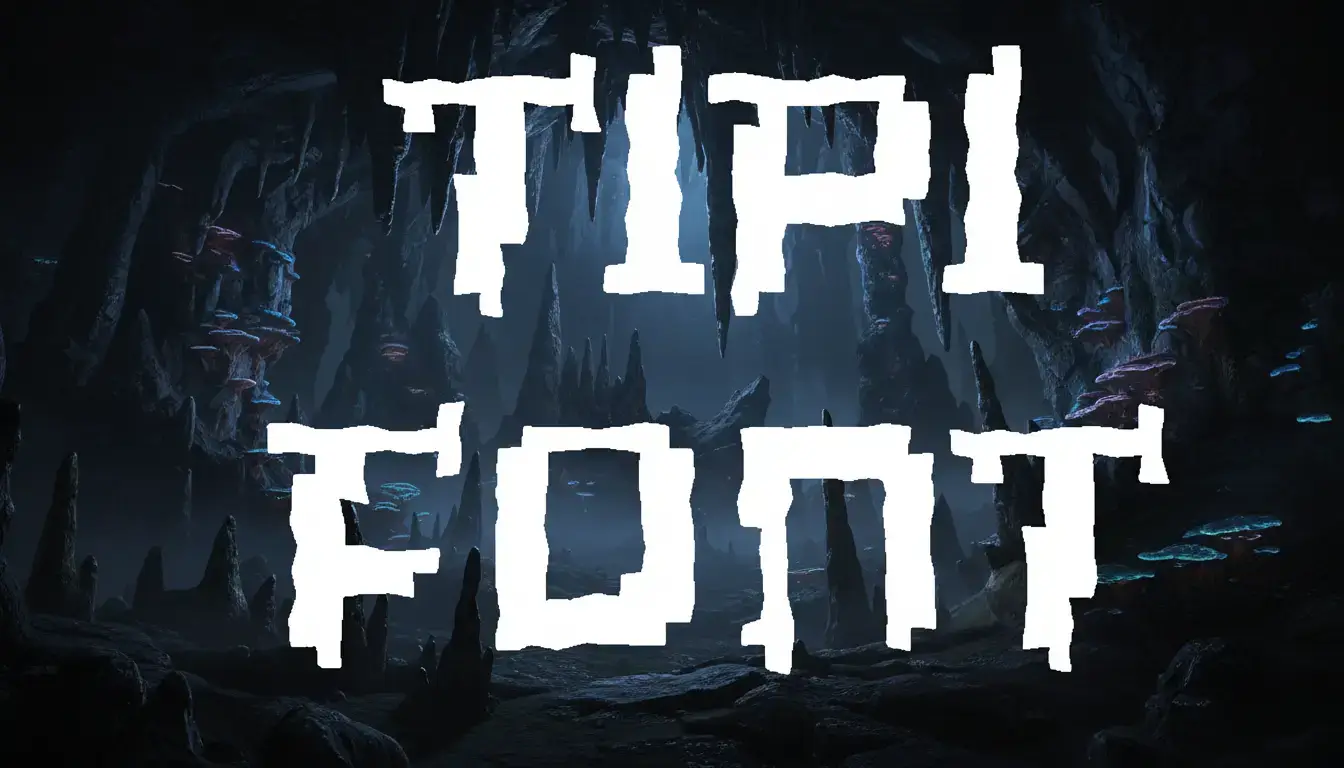
Tipi Archaic Font
Tipi Archaic is a highly unique, decorative display typeface designed by the German typographer Thomas Mettendorf and released through his studio, Schmalfett. Initially created in 1998 using a strict geometric layout grid, the design took an accidental turn—resulting in a distinct, tribal visual identity rather than a standard mechanical aesthetic.
Tipi Archaic
Tipi Archaic is a techno font designed by Thomas Mettendorf and published by Schmalfett. Squared-off, geometric letters give it a digital, high-tech feel. You get ten styles in one free ZIP, and the preview above lets you test each one before you download.
- Font styles: 10 (Archaic, Archaic Inline, Electric, Electric Display, Electric Inline, Organic, Organic Inline, Slanted Electric, Slanted Electric Display and Slanted Electric Inline)
- Glyphs: 202 in the Archaic style
What You Can Type With Tipi Archaic
You get every letter from A to Z in both cases and all the numbers from 0 to 9, which means Tipi Archaic can handle full sentences, dates and prices. Everyday marks like &, !, ? and @ are there too. Thanks to its accented letters, it also works for Spanish, French, German, Portuguese and Italian, not just English.
Where Tipi Archaic Works Best
Tipi Archaic is a natural fit for gaming logos, tech branding and futuristic posters. Try it on a dark background with a bright accent color for a sharp, modern look. Because the family has more than one style, you can mix them in a single design for headings, subheadings and highlights.
Does Tipi Archaic support accented letters?
Yes. Tipi Archaic includes the accented letters needed for Spanish, French, German, Portuguese and Italian, so it works for more than just English.
What fonts pair well with Tipi Archaic?
A simple sans serif like Roboto keeps longer text easy to read next to it.